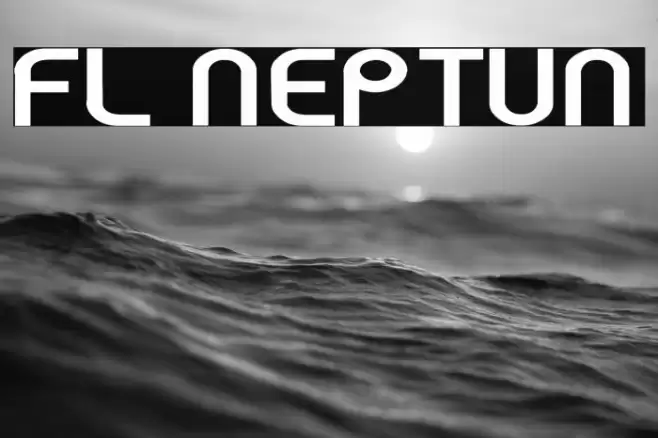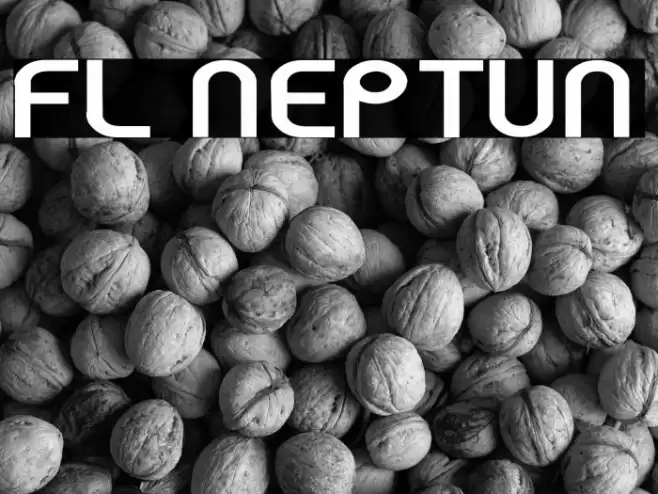
FL Neptun Font
FL Neptun Description
This font features a modern and geometric design with clean lines and a structured appearance. The characters are uniform in width, giving it a monospaced feel, yet they maintain a distinct elegance. The rounded edges on certain letters, such as 'C' and 'G', add a touch of softness to the otherwise bold and assertive style. The uppercase letters are particularly striking, with a consistent height and balanced proportions. The font's simplicity and clarity make it highly legible, suitable for both digital and print media. Its contemporary aesthetic is ideal for projects that require a sleek and professional look.
A modern, geometric font with clean lines and a structured, monospaced feel from Uncategorized fonts.
- Proposed Projects: Ideal for branding, headlines, digital interfaces, and modern print designs.
- Use Case: Headlines, Logos, Digital interfaces